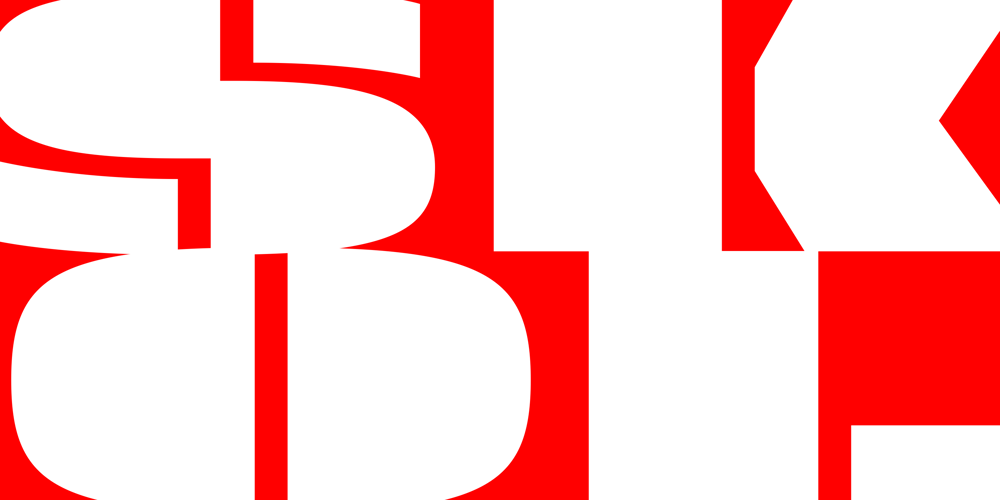
Skol
Skol font
Skol Font Family was designed by Michael Cina and published by Associated Typographics. Skol contains 6 styles and family package options. Feast your eyes on Skol, a delinquent typeface containing eight distinctive weights. Each member of the family is wider than the next, giving you a versatile selection that both solves design problems and adds character. Skol is a distinguished typographic font that works perfectly for making short and earnest editorialized statements. We included a number of extra treats in Skol’s lexicon and each weight has an abundant 575 characters. On or off the screen, Skol is a tenacious, hardy font that would make its ancestors proud.